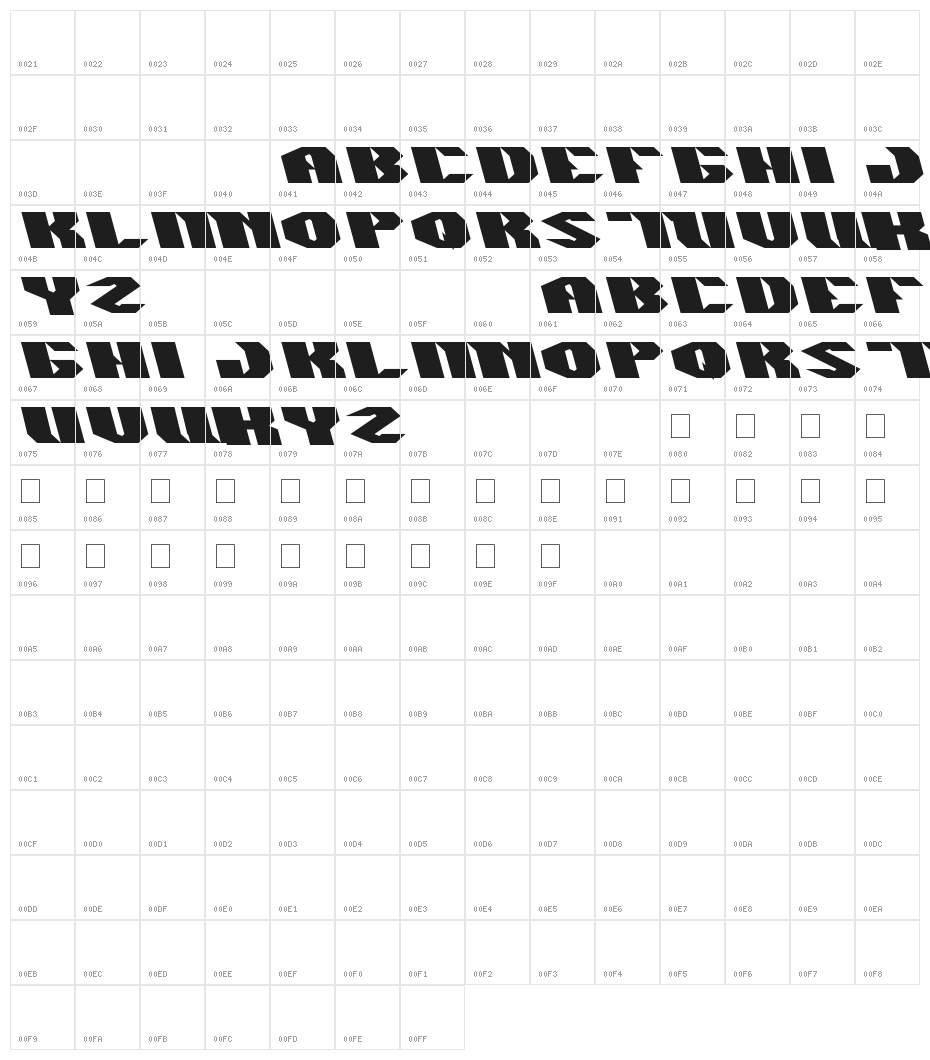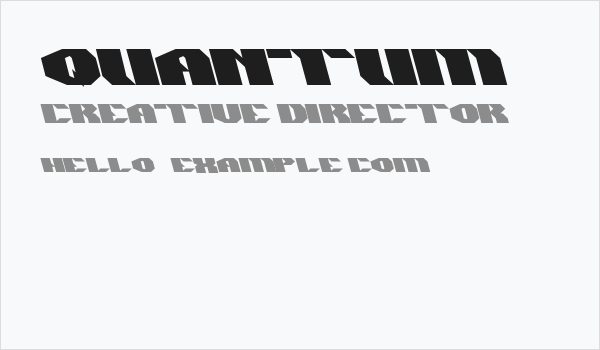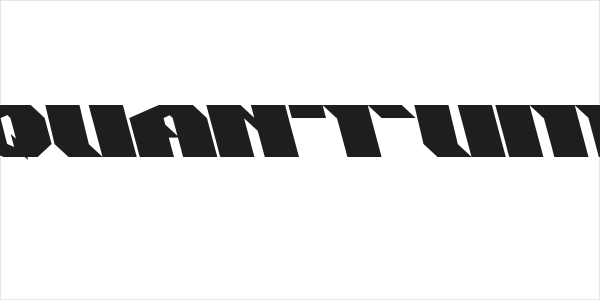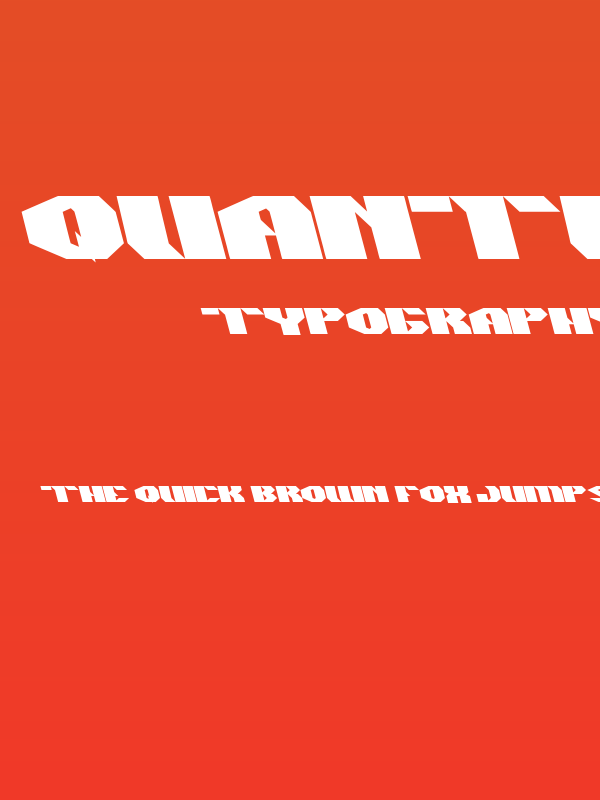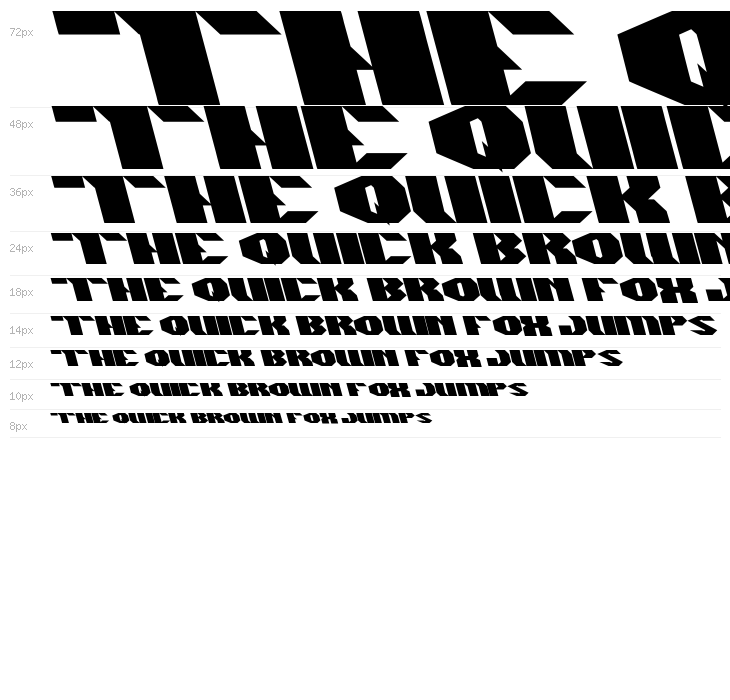
QUANTUM Font
QUANTUM Description
This font features a bold and angular design, characterized by sharp edges and geometric shapes. The letters are constructed with a distinct blocky style, giving it a futuristic and dynamic appearance. The uppercase letters are particularly striking, with each character exhibiting a unique angular cut that adds to the overall boldness. The font's design is consistent across all characters, maintaining a cohesive and impactful look. Its strong presence makes it suitable for attention-grabbing headlines and titles. The absence of curves and the emphasis on straight lines and angles contribute to its modern and edgy aesthetic.
Proposed ProjectsIdeal for sci-fi themed projects, video game titles, tech branding, and modern posters.